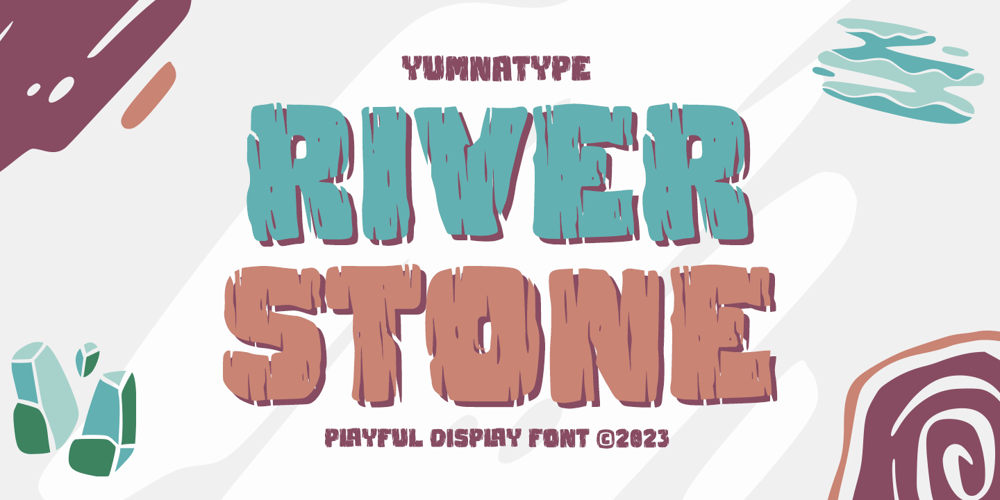
River Stone Font Family was designed by Donis Miftahudin and published by Yumna Type. River Stone contains 1 styles and family package options. It may be difficult to find a font with characters and legibility rates when creating impactful visual designs. Amid the abundance of ordinary font options, the branding and marketing processes can remain stagnant because the absence of unique fonts will increase the risk of your visual designs getting blended with other people’s designs and be left forgotten. For that reason, we would be glad to introduce you to River Stone, a font to give you assistance to create prominent visual designs quickly and easily.River Stone is an uppercased display font in textured letter shapes with which it shows firm, eye-catchy impressions. The font’s textures can add dimensions to the letters’ displays and live up the design nuances. With the use of uppercases, this font is capable of protruding the desired messages and make the design displays more attractive. Its unique shapes will affect the legibility rate of the font, therefore, you need to use this font for big text sizes for a better legibility reason. In addition, this font provides you a clipart as a bonus and you can make use of the available features here as well.Features: Multilingual Supports PUA Encoded Numerals and Punctuations River Stone fits best for various design projects, such as brandings, posters, banners, headings, magazine covers, quotes, printed products, merchandise, social media, etc. Find out more ways to use this font by taking a look at the font preview.Thanks for purchasing our fonts. Hopefully, you have a great time using our font. Feel free to contact us anytime for further information or when you have trouble with the font. Thanks a lot and happy designing.